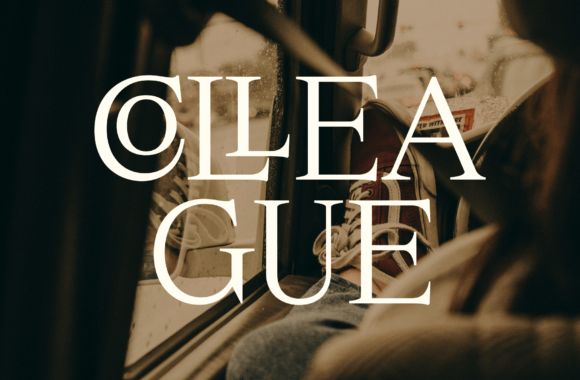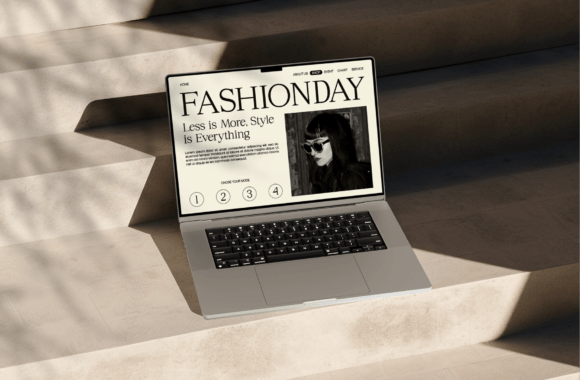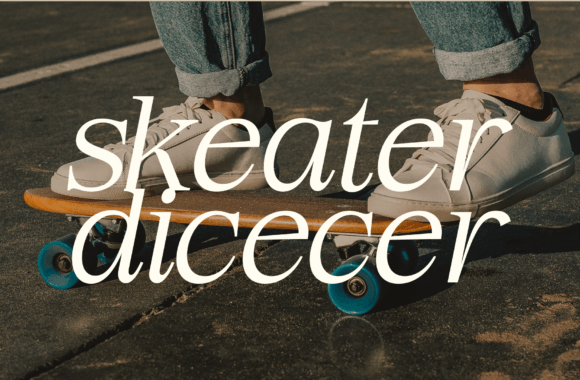
Introduction to Sirkel Font
Have you ever been working on a creative project, and the perfect font has eluded you? The search for the ideal design resource can be a daunting task, especially when you’re looking for something that exudes elegance and sophistication without compromising on style. That’s where the Sirkel Font comes in – a high-quality, versatile typeface that’s sure to elevate your visual compositions.
With its clean, balanced lines and geometric precision, the Sirkel Font is a modern aesthetic that’s perfect for a range of design applications. Whether you’re working on a project that requires a transparent background or a creative project that demands a touch of sophistication, this font is an excellent choice. What sets it apart are its unique ligatures and alternate characters, which add a subtle yet distinctive flair to the typeface. And the best part? It’s available for free download, making it an accessible design resource for designers of all levels.
Key Features of Sirkel Font
- Unique, modern design that adds a touch of sophistication to any project
Honest Review: Sirkel Font
I recently came across the Sirkel Font, a design resource that caught my attention with its unique and creative style. The first thing that stood out to me was the transparent background, which makes it easy to incorporate into any design project.
- ✨ High-quality design: The Sirkel Font is a beautifully crafted font that adds a touch of elegance to any creative project.
- ✨ Versatile: The font is suitable for a wide range of design applications, from logos to brochures and everything in between.
- ⚠️ Limited character set: The font may not be suitable for projects that require a wide range of special characters or symbols.
- ⚠️ Not ideal for small text: The font may be difficult to read at small sizes, which could be a limitation for certain design projects.
Overall, I’m impressed with the Sirkel Font and would definitely recommend it as a design resource. While it may have some limitations, its high-quality design and free download make it a valuable addition to any designer’s toolkit.
How to Use Sirkel Font
Getting the Most Out of the Sirkel Font
To get the most out of the Sirkel Font, use it with a transparent background to create a clean and modern design. Experiment with different font sizes, colors, and styles to make your design stand out.
The Sirkel Font is ideal for creative projects that require a modern and professional touch. You can use it to create logos, branding materials, social media graphics, and more.
Alternatives to Sirkel Font
The Great Vibes Font is a beautiful, handwritten script font that is perfect for creative projects requiring a touch of elegance and sophistication. It’s ideal for wedding invitations, quotes, and other design elements that need a personal touch. Great Vibes Font is available for free download and offers a transparent background, making it easy to use in any design.
Compared to Sirkel Font, Great Vibes Font has a more whimsical and artistic feel, making it suitable for projects that require a unique and creative touch.
The Alex Brush Font is a high-quality, handwritten script font that is perfect for designers looking for a sophisticated and elegant look. It’s ideal for logo designs, branding, and other design elements that require a touch of class. Alex Brush Font is available for free download and offers a transparent background, making it easy to use in any design.
Compared to Sirkel Font, Alex Brush Font has a more refined and polished feel, making it suitable for projects that require a high-end look.